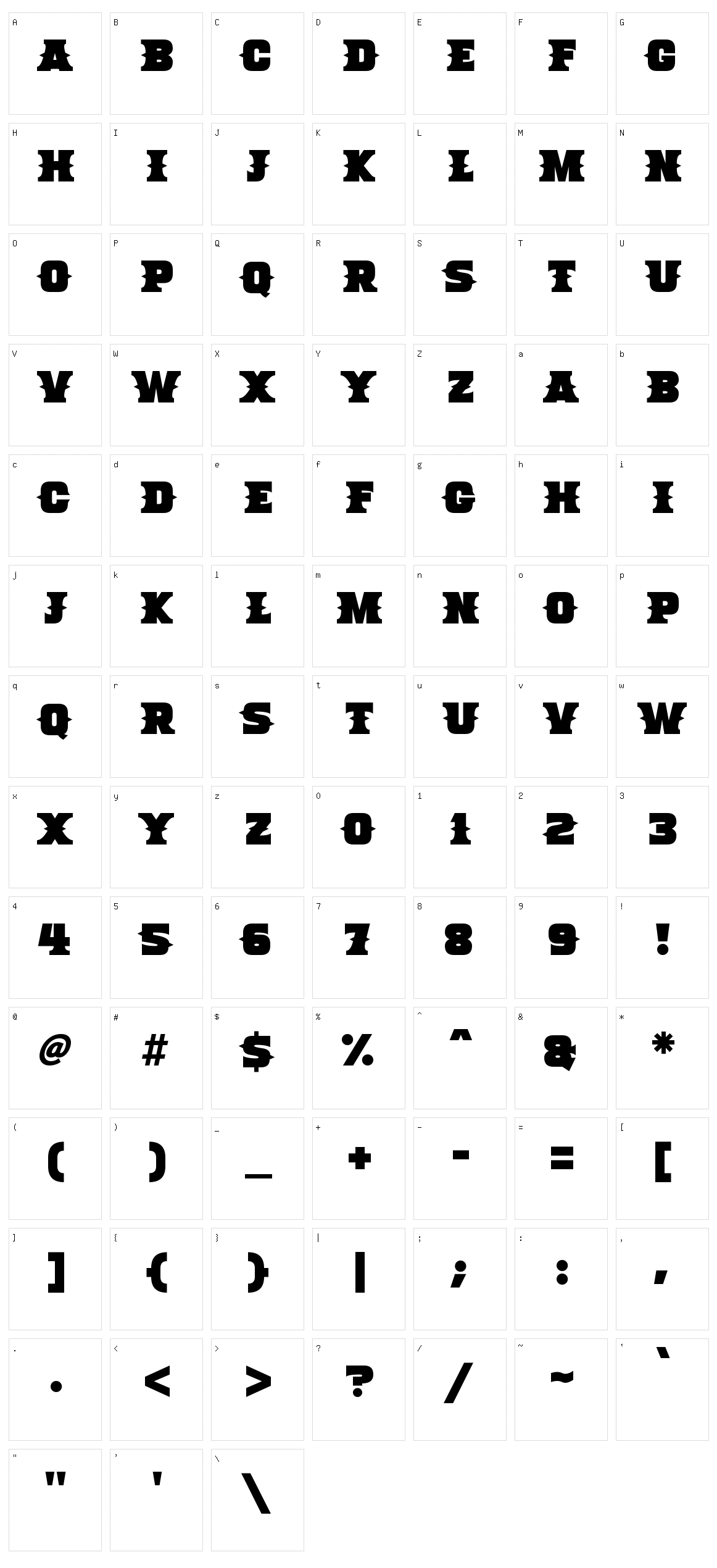
The free font Deadman is carefully designed by Hawtpixel, showcasing a thoughtful balance of creativity and usability and falls under the Western font style. When you download the ZIP file, it contains only 35.33 KB of font files, making it lightweight and quick to download. Please review the license details below to understand permitted usage and distribution rights. If license information is not available, we recommend using this font for personal projects only or contacting the author directly for commercial usage permissions.
*Capital C and G are alternates*